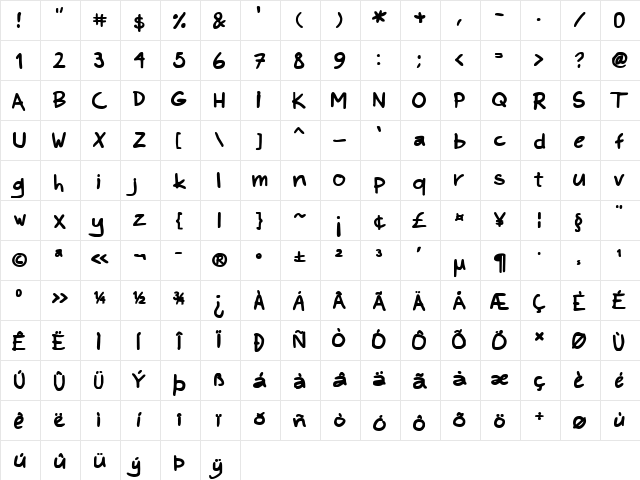
Kims Hand Bold
| Foundry | Kimpix Freelance Design |
| Designer | Kimpix Freelance Design |
Design Context for Kims Hand Typeface
Kims Hand flows with the natural rhythm of handwritten lettering, making it ideal for designs that call for warmth and personal expression. The heavy weight commands attention and anchors typographic hierarchies.
Font Pairing: Combine Kims Hand with a simple geometric sans for maximum contrast — the tension between flowing curves and clean structure is a classic typographic pairing.
Pro Tip: Use Kims Hand for short runs of text — names, titles, or taglines. Extended body copy in script faces tires the eye quickly.